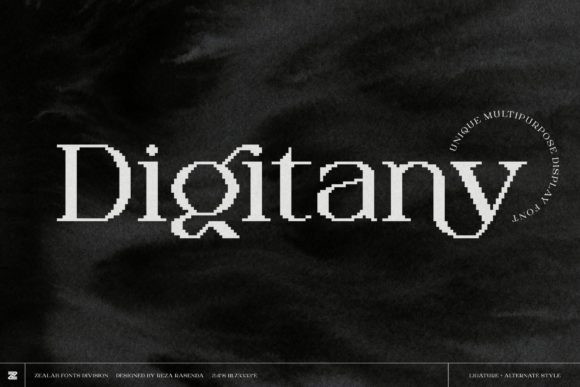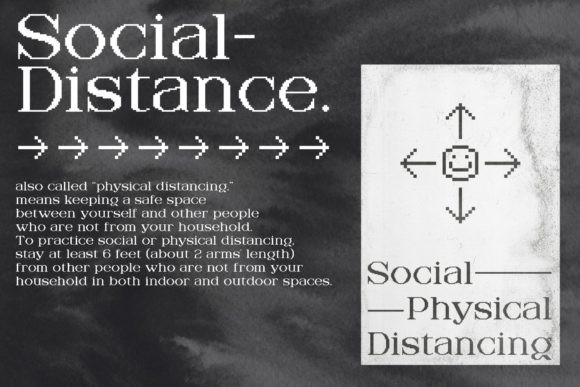
Digitany Font
Digitany is a multipurpose display font. It’s a perfect combination of a luxurious serif font and pixel art style. Effortlessly, recreate the classic fun vibes of the 80’s with this amazing typeface!